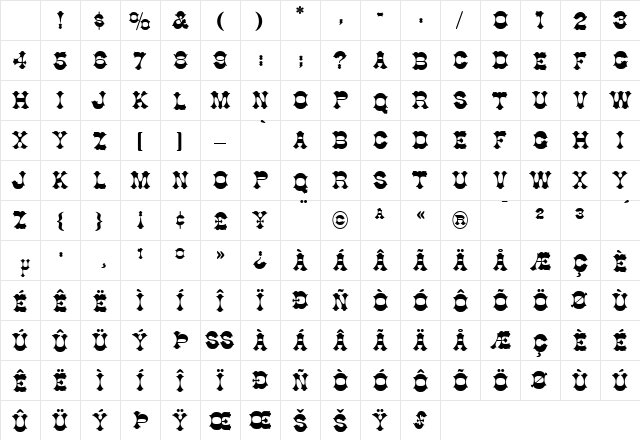
Complete Cottonwood Roman glyph index. Displaying only characters natively supported by Cottonwood Roman font.
Cottonwood echoes the hand-painted signage and woodblock typography of the American frontier, with a warm, rugged personality.
Font Pairing: Combine Cottonwood with a simple slab or neutral sans - period-accurate companions reinforce the vintage feel without competing for attention.
Pro Tip: Use Cottonwood for short, impactful bursts of text - it shines in poster headlines and product names rather than extended copy.